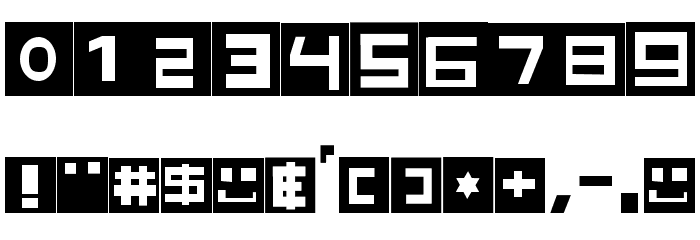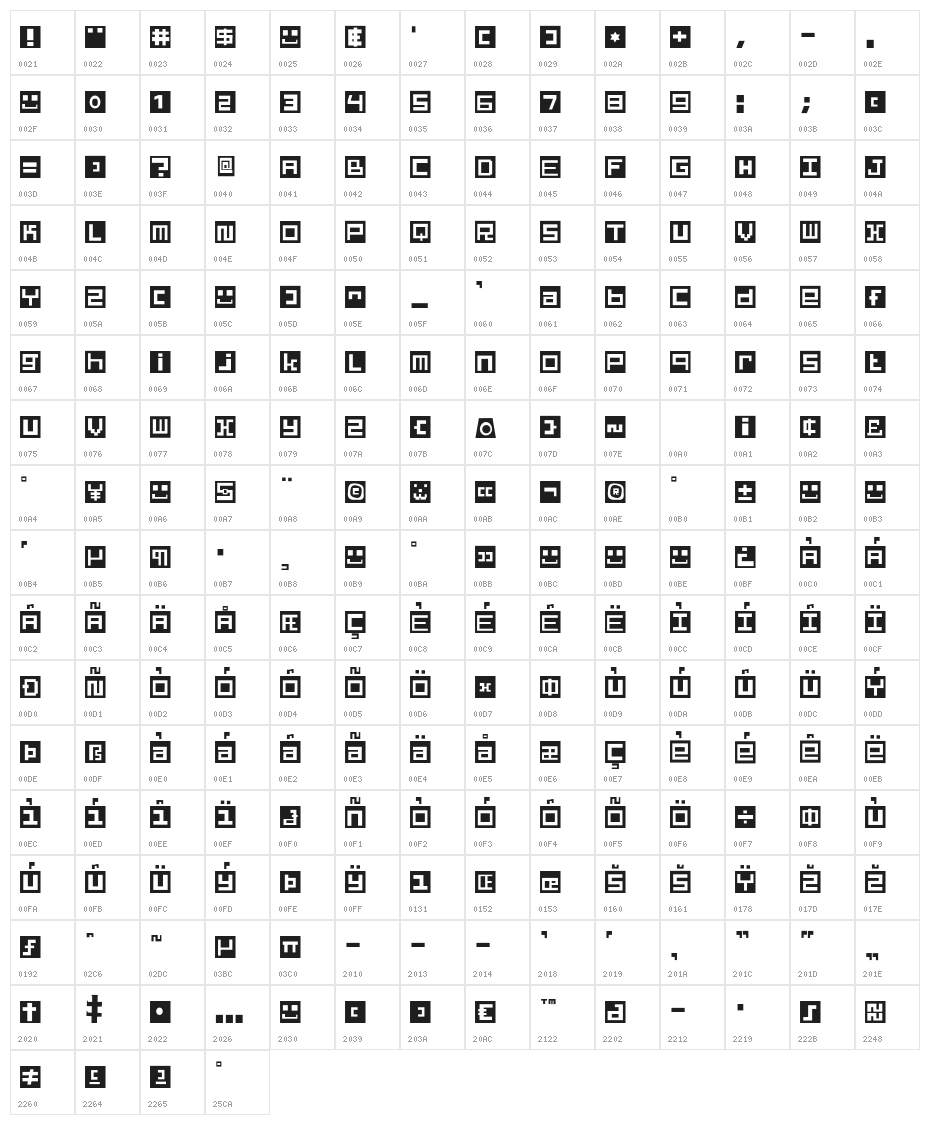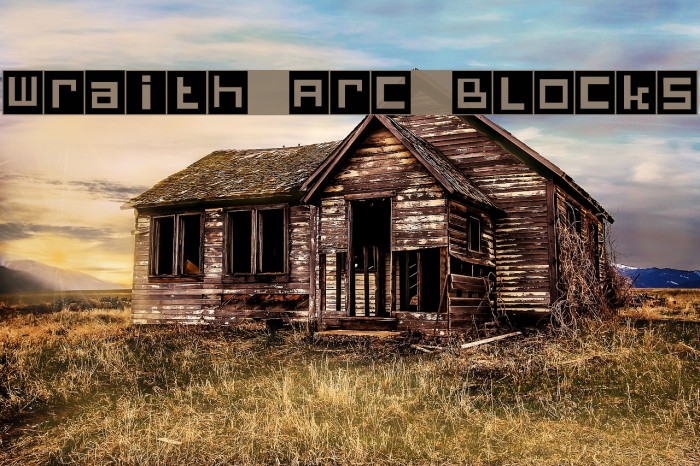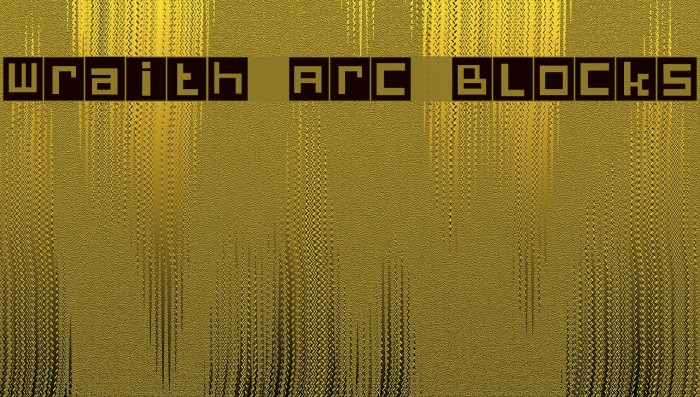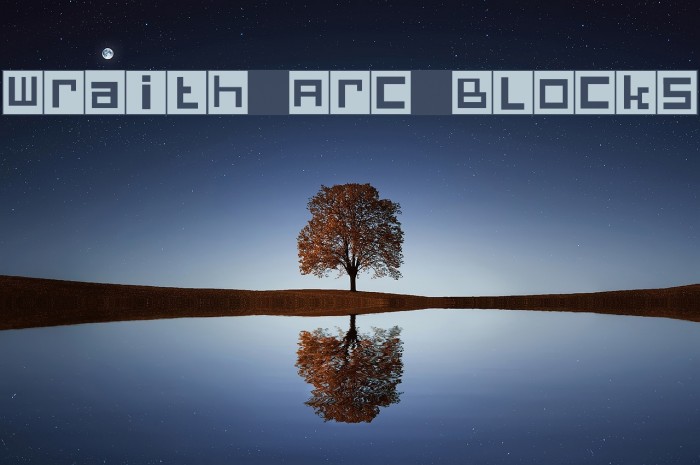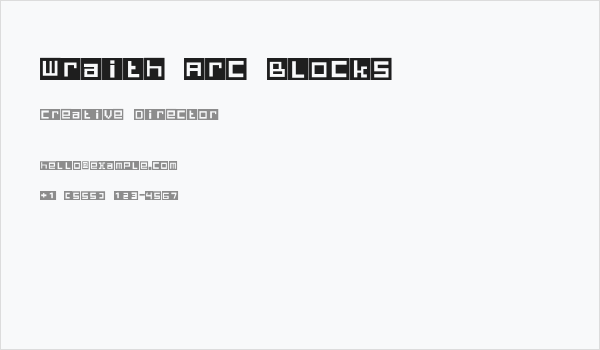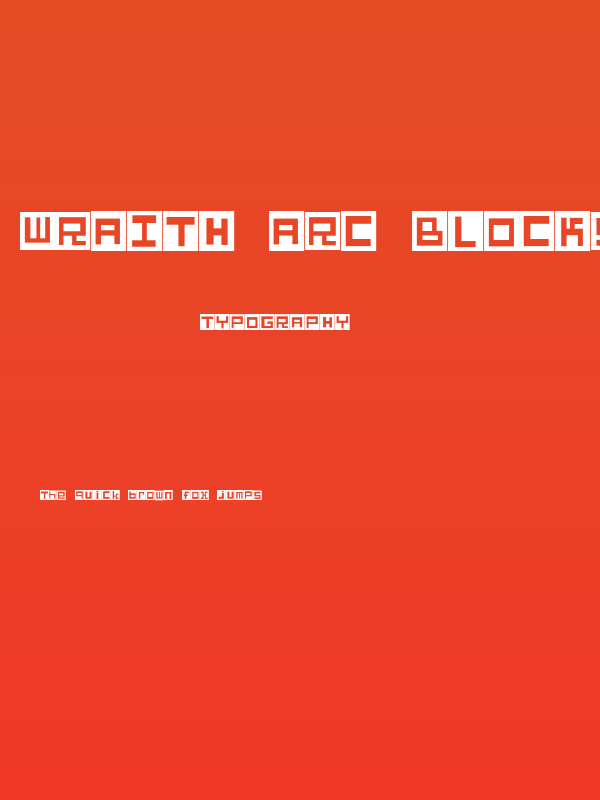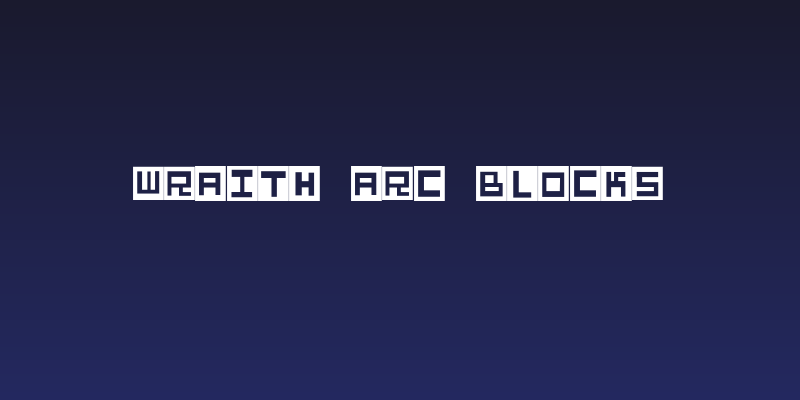
Wraith Arc Blocks Font
Wraith Arc Blocks Description
This font features a bold, blocky design with a distinctly digital aesthetic. Each character is enclosed within a square, giving it a structured and uniform appearance. The characters are reminiscent of early digital displays or pixel art, with sharp edges and a consistent geometric style. The uppercase and lowercase letters maintain the same blocky structure, providing a cohesive look across different text cases. Numbers and special characters follow the same design principles, ensuring uniformity throughout. The font's style is highly decorative, making it ideal for projects that require a retro or tech-inspired theme.
| Overall Style | Modern, Retro |
| Proposed Projects | Ideal for video game graphics, tech-themed posters, digital art projects, and retro-style branding. |